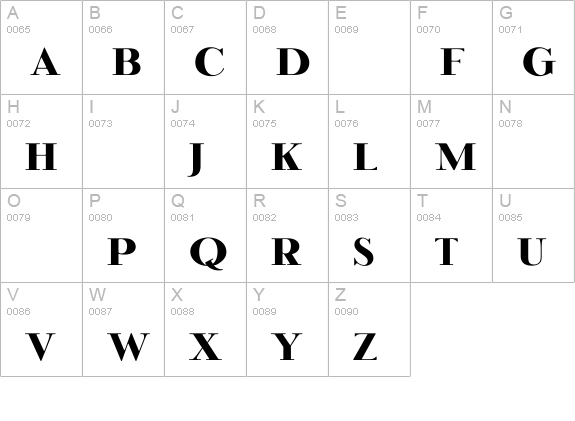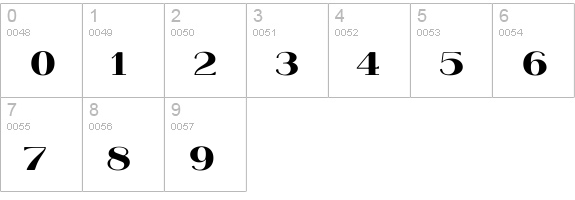
HondurasSolid Font Details
HondurasSolid font is a bold and stylish typeface that exudes strength and confidence. Its clean lines and solid structure make it perfect for any design project that requires a powerful and impactful look. Whether you're creating posters, logos, or branding materials, HondurasSolid font will make your text stand out and leave a lasting impression. What's even better is that HondurasSolid font is completely free to download at FontsMarket.com. This means you can easily access this high-quality font without any cost, making it a valuable addition to your font library. Don't miss out on the opportunity to enhance your designs with the striking presence of HondurasSolid font – download it now and take your projects to the next level!